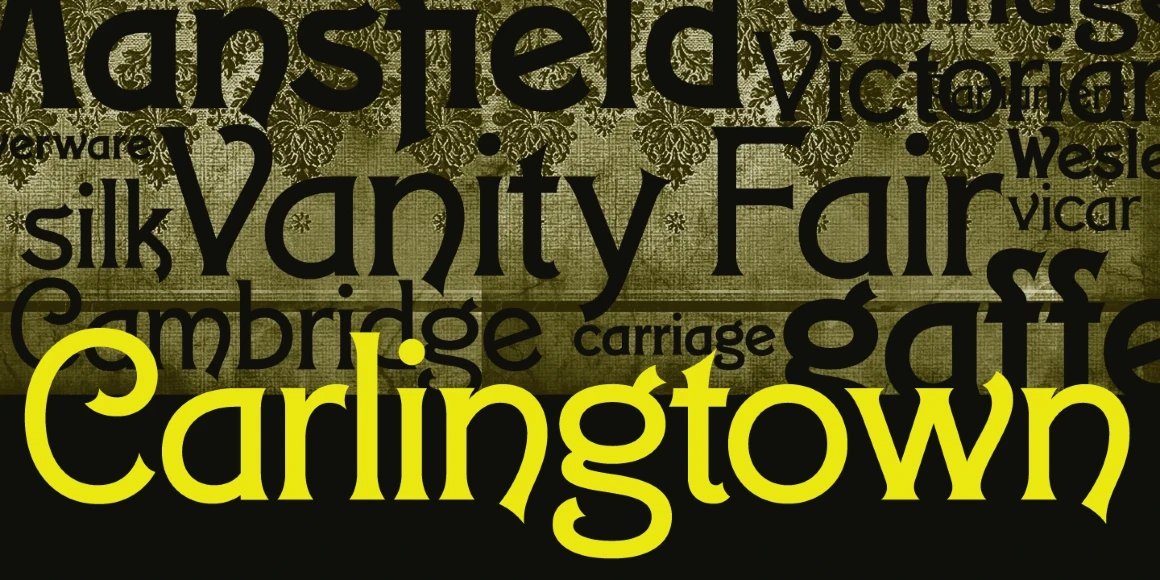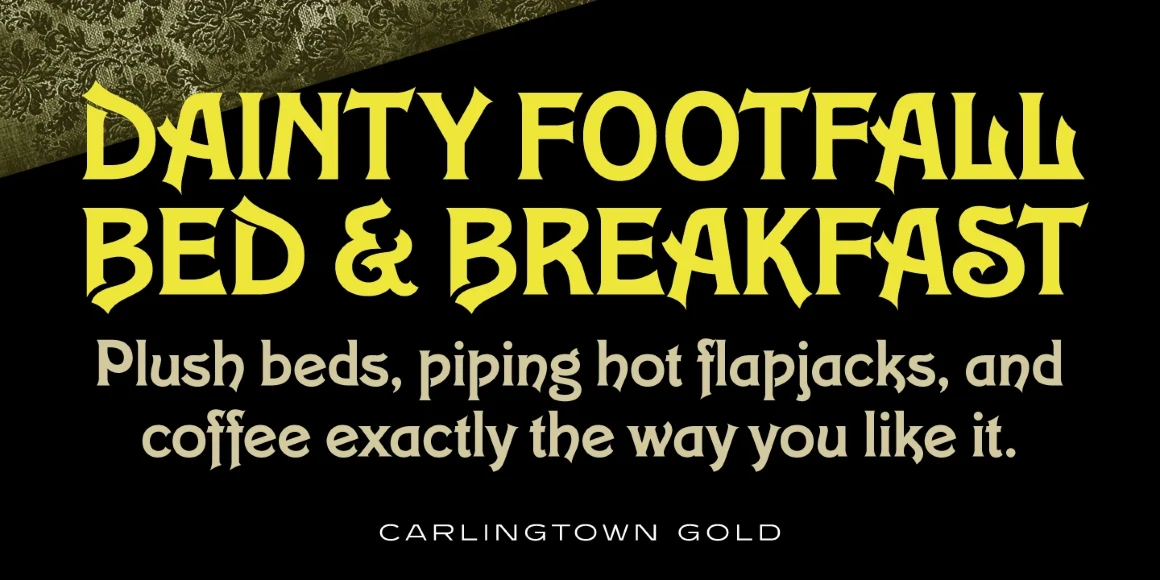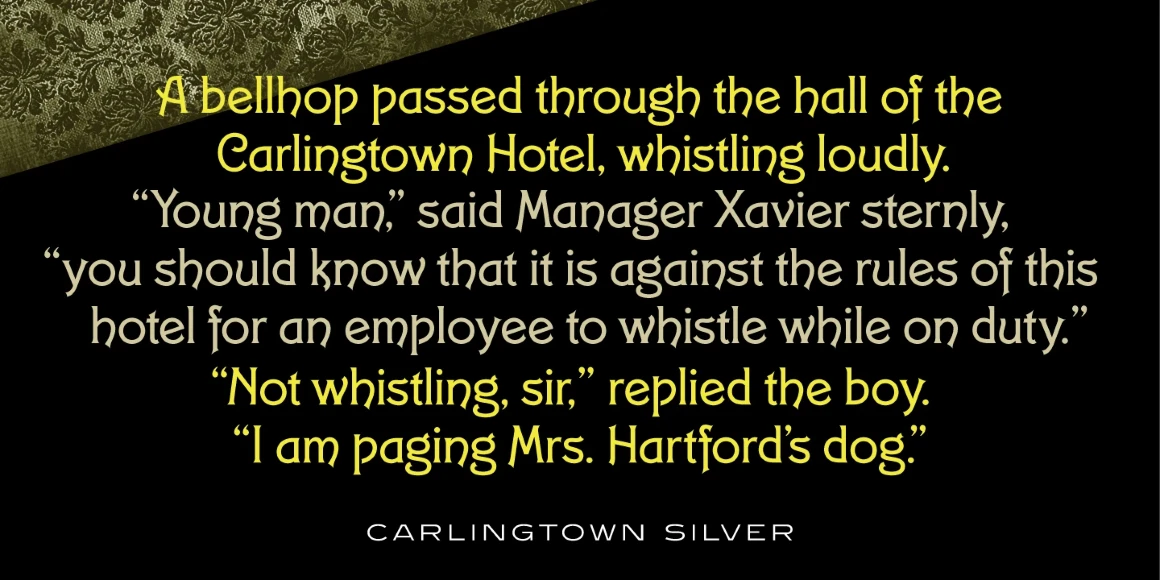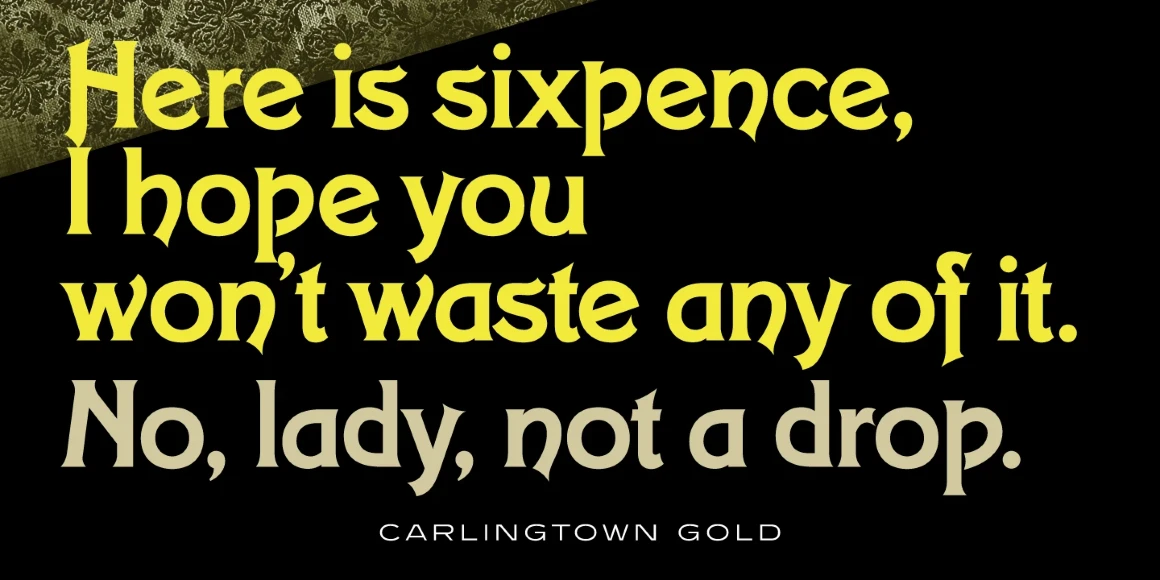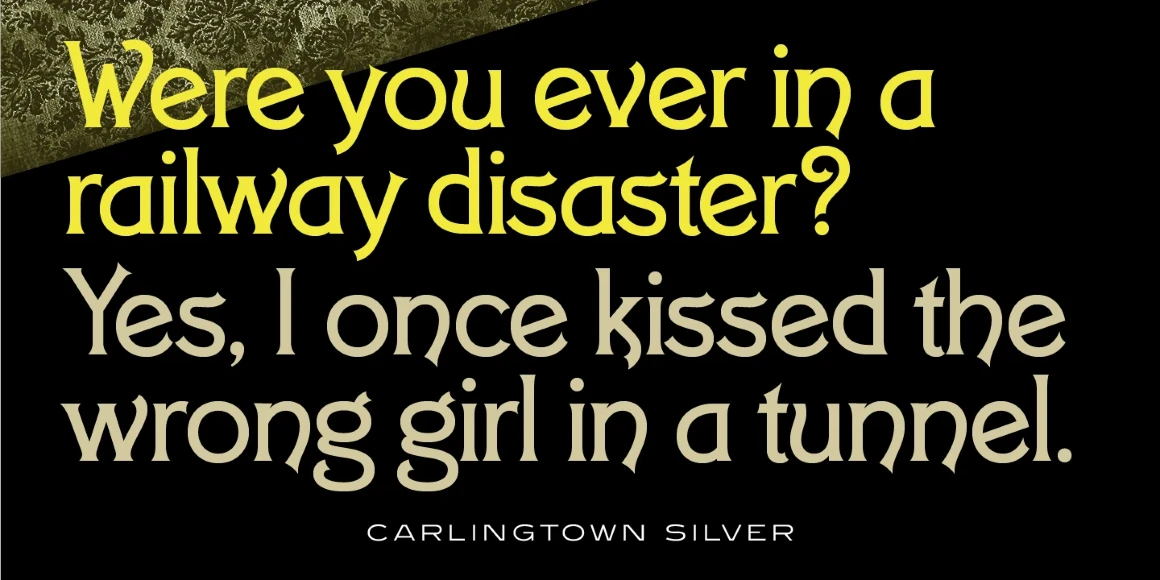
Carlingtown
Carlingtown Silver Light
Carlingtown Gold Bold
Carlingtown is a decorative serif font family. It was created and produced by Steve Jackaman (ITF) and Ashley Muir in 2009, and was originally known as the typeface ‘Constantia.’ At the time of publication ‘Constantia’ was already in use, so Jackaman decided to give this Victorian font family the new name ‘Carlingtown.’ Carlingtown has a Victorian, Art Deco, or elegant vaudeville feel. The family is quite flexible in its application, and works in everything from small paragraph size to an all-caps display size.